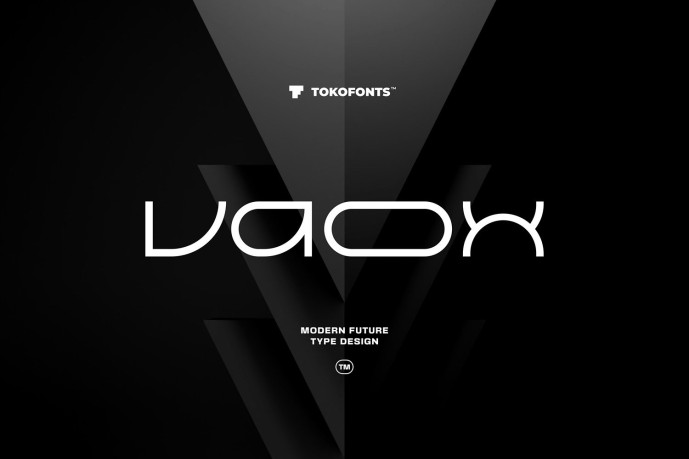
Vaox Font
Vaox Font is a modern, bold font built for impactful logo design and digital branding. Featuring clean, square letterforms and a futuristic tech-inspired construction, Vaox expresses a strong sense of technology and precision. Its digital appearance delivers clarity and confidence, making it a solid choice for modern logos, tech-driven brands, and visual identities that demand a sharp, contemporary look.
Designed to stand out across creative applications, Vaox works seamlessly for gaming visuals, movie titles, posters, and animation projects. The bold structure and futuristic style create powerful typography that performs well in digital environments and motion-based designs. Whether used as a logo font or a striking display font, Vaox brings modern technological energy and visual impact to every composition.